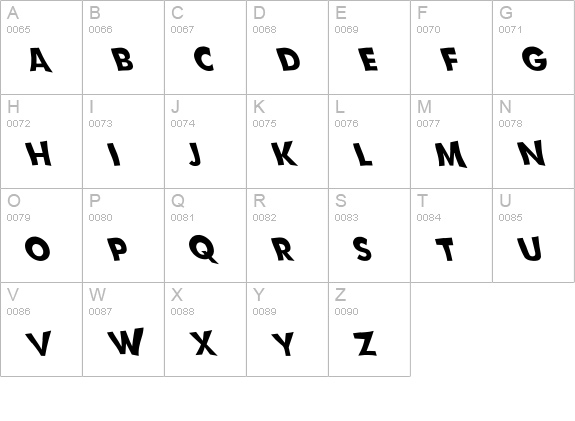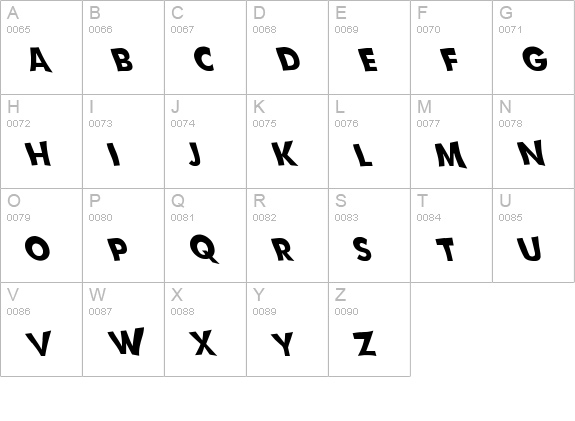
sparrow (sRB) Font Details
Introducing the exquisite and versatile Sparrow (sRB) font, a stunning display of elegance and sophistication. With its sleek and modern design, Sparrow (sRB) is the perfect choice for any creative project, whether it's branding, logo design, typography, or advertising. This font boasts a unique combination of sharp edges and soft curves, creating a harmonious balance that catches the eye and leaves a lasting impression. Its clean and legible characters make it ideal for both headlines and body text, ensuring maximum readability in any context. One of the most remarkable features of Sparrow (sRB) is its versatility. It effortlessly adapts to various design styles, from minimalist to bold and edgy, making it a go-to choice for designers seeking a font that can easily adapt to their vision. Its wide range of available weights and styles further enhances its flexibility, allowing for endless creative possibilities. But what sets Sparrow (sRB) apart is its availability as a free font! That's right, this exceptional typeface can be downloaded for free at FontsMarket.com. We believe in providing accessible and high-quality resources for designers and enthusiasts alike, and Sparrow (sRB) is no exception. So whether you're a professional graphic designer seeking a reliable and captivating font or an aspiring creative looking to experiment with typography, Sparrow (sRB) is the perfect choice. Download this remarkable font today at FontsMarket.com and let your imagination soar to new heights.